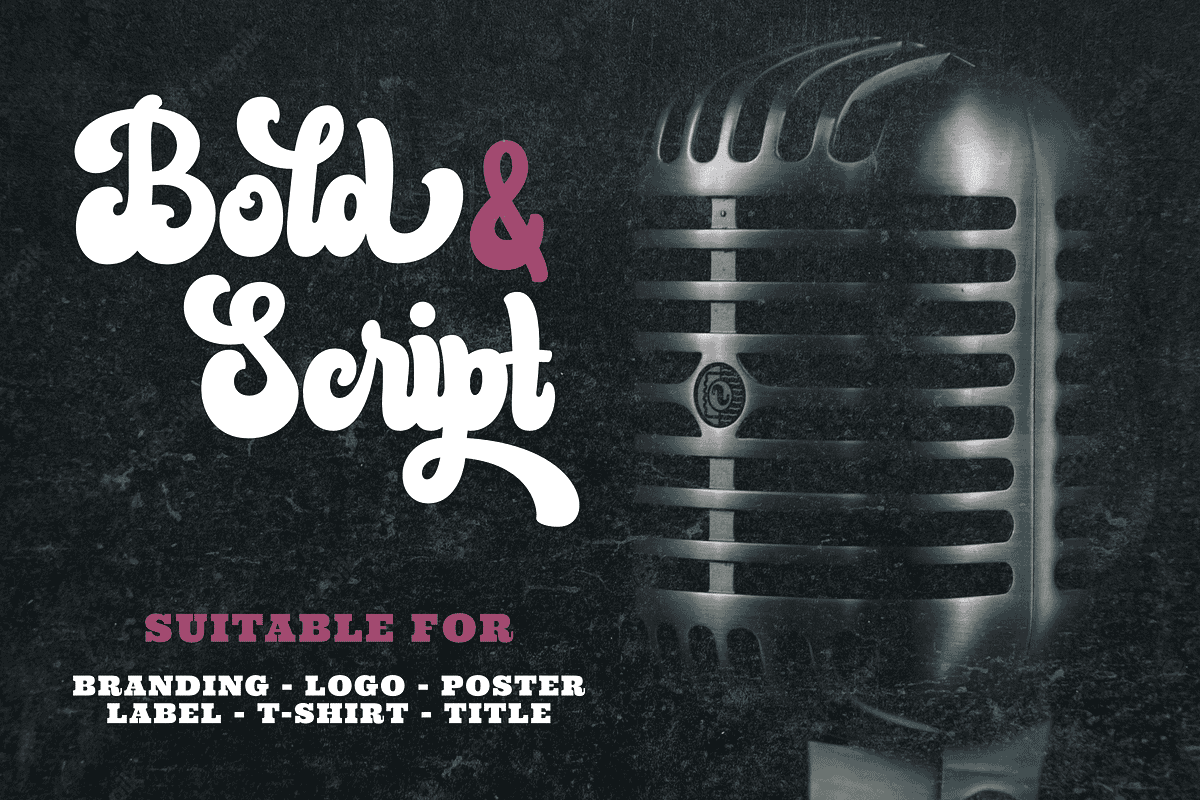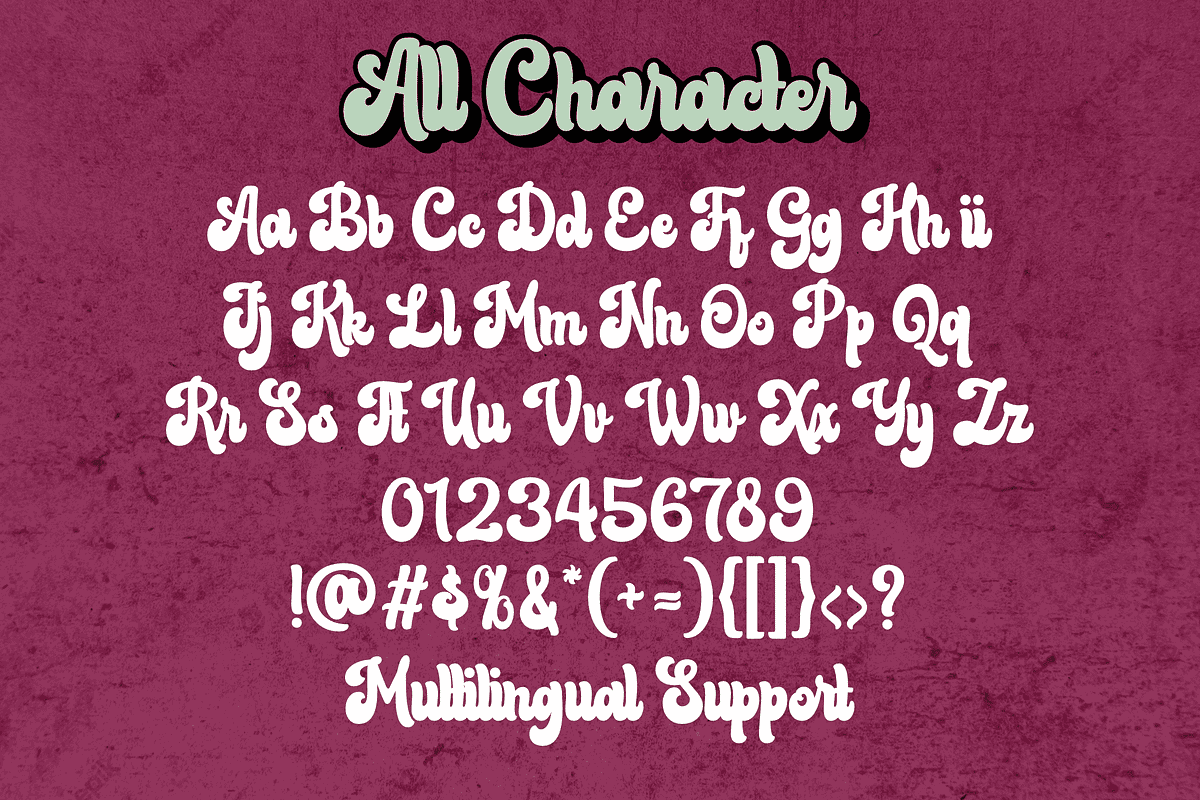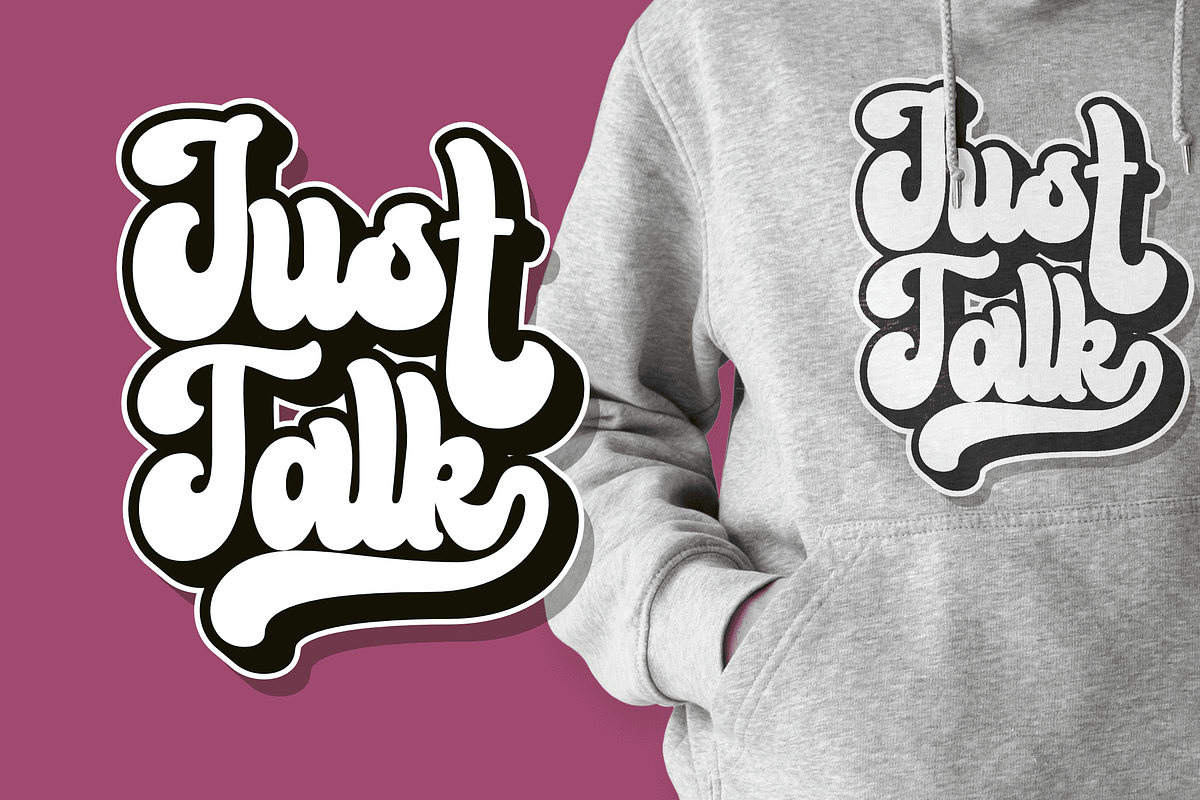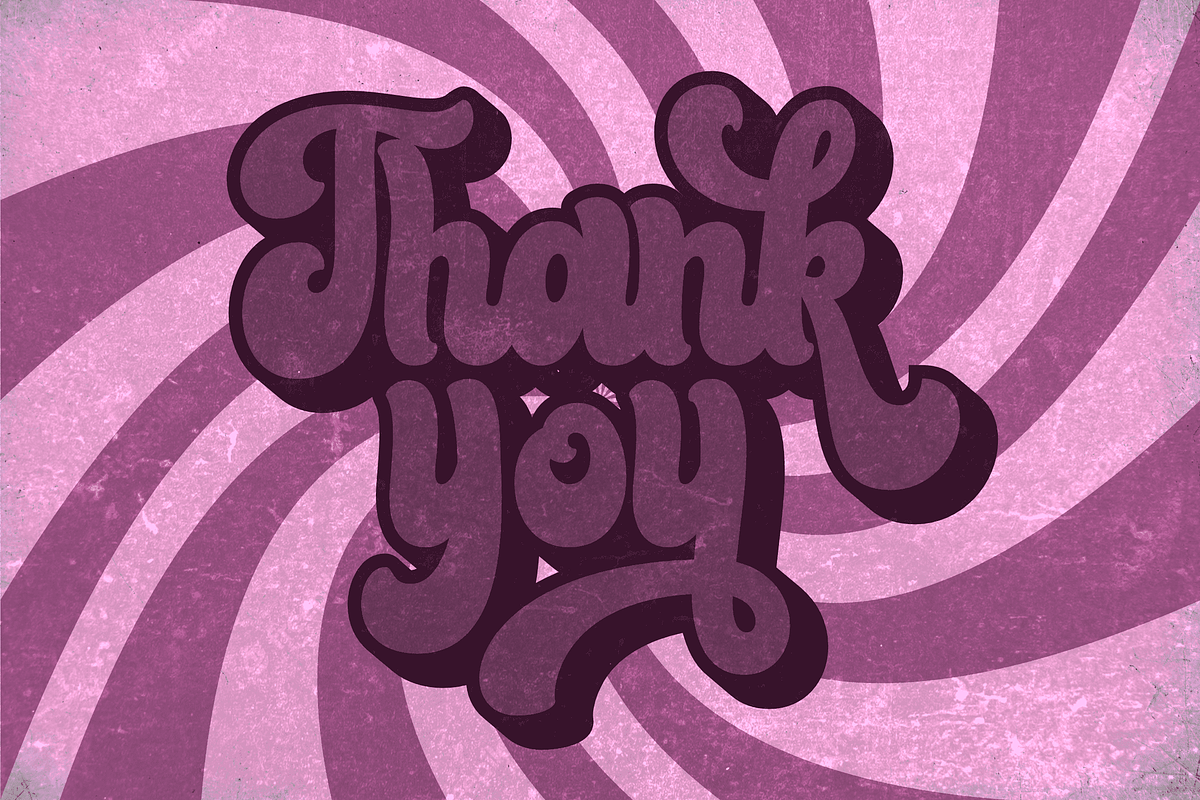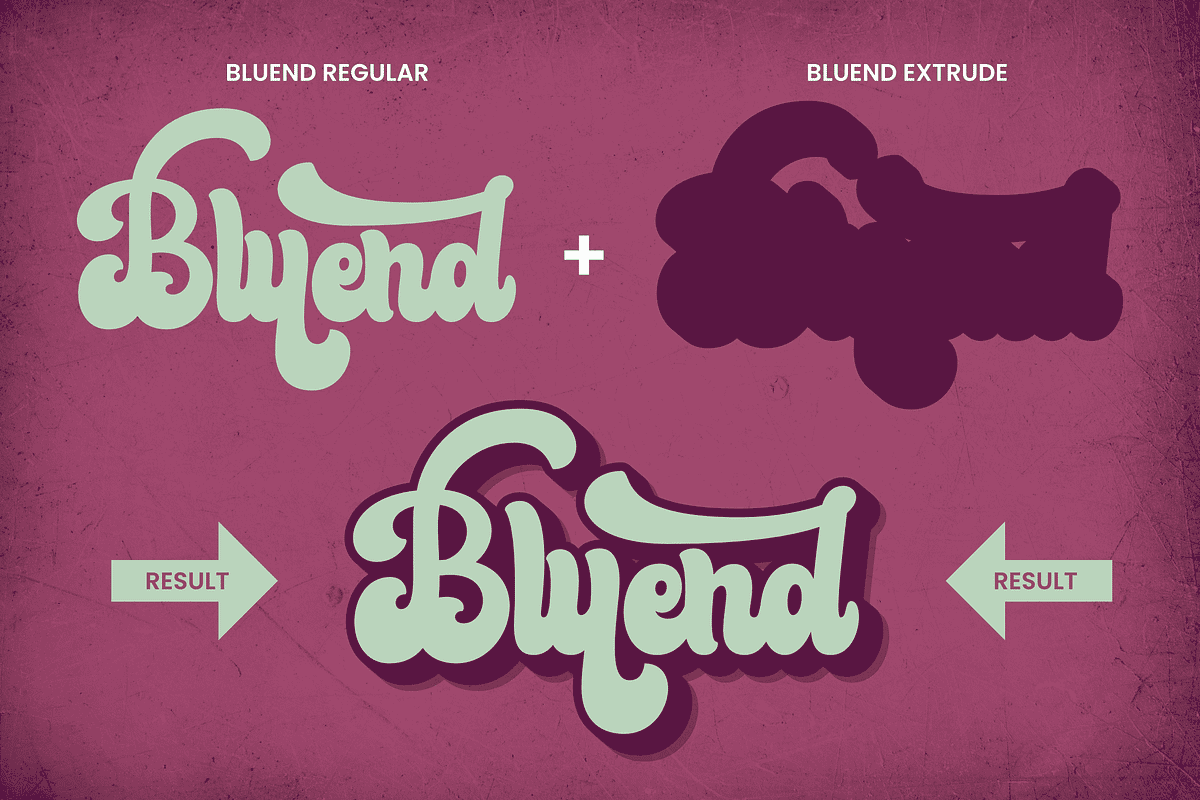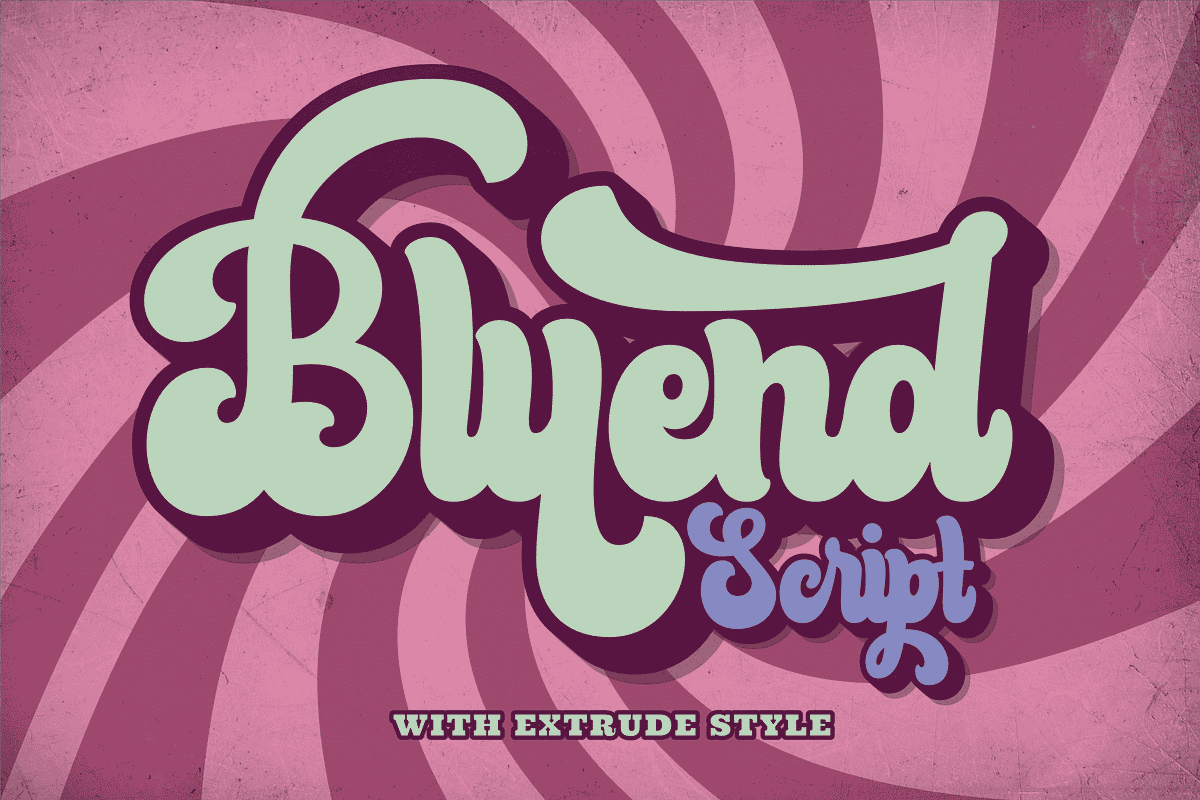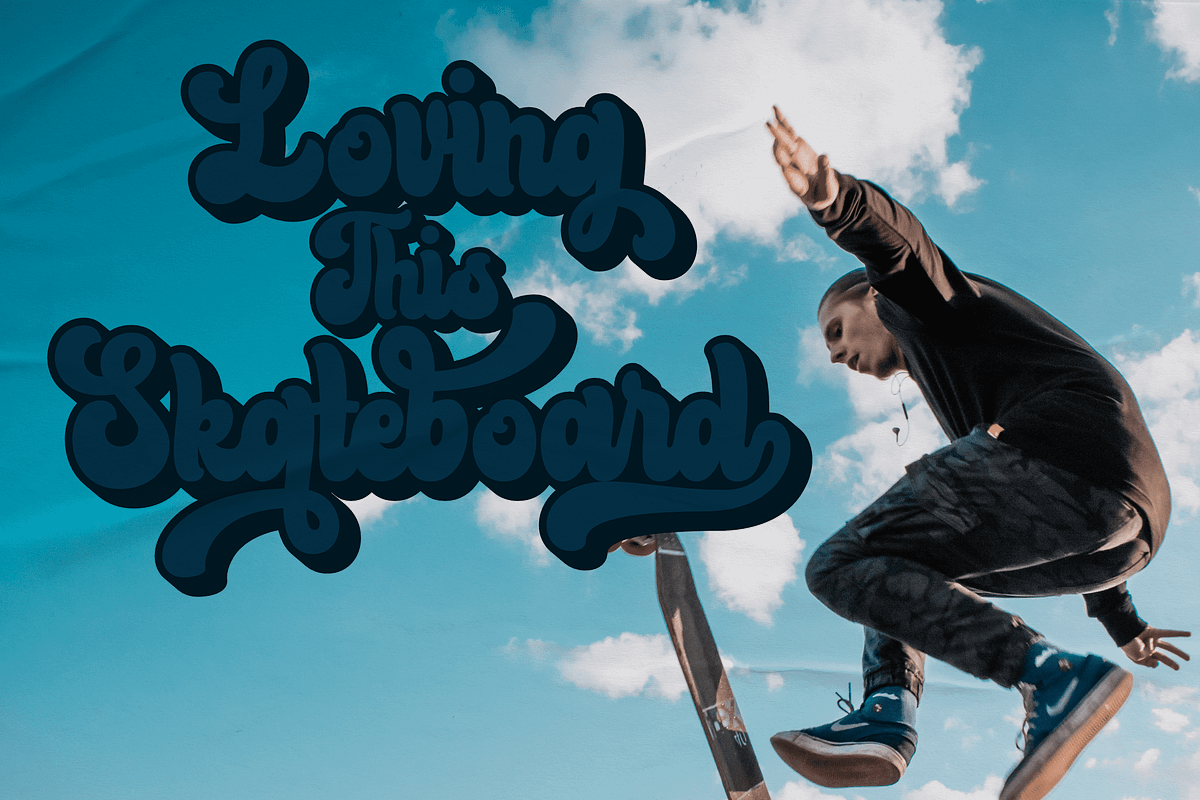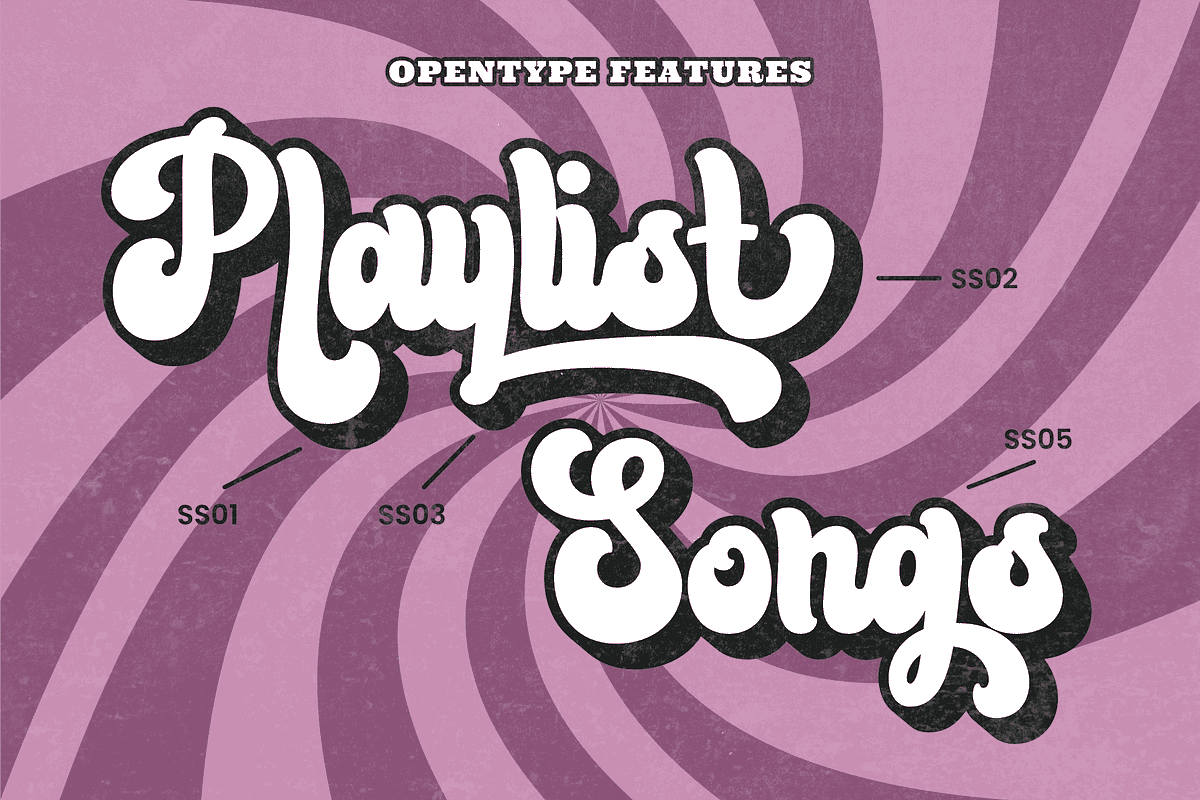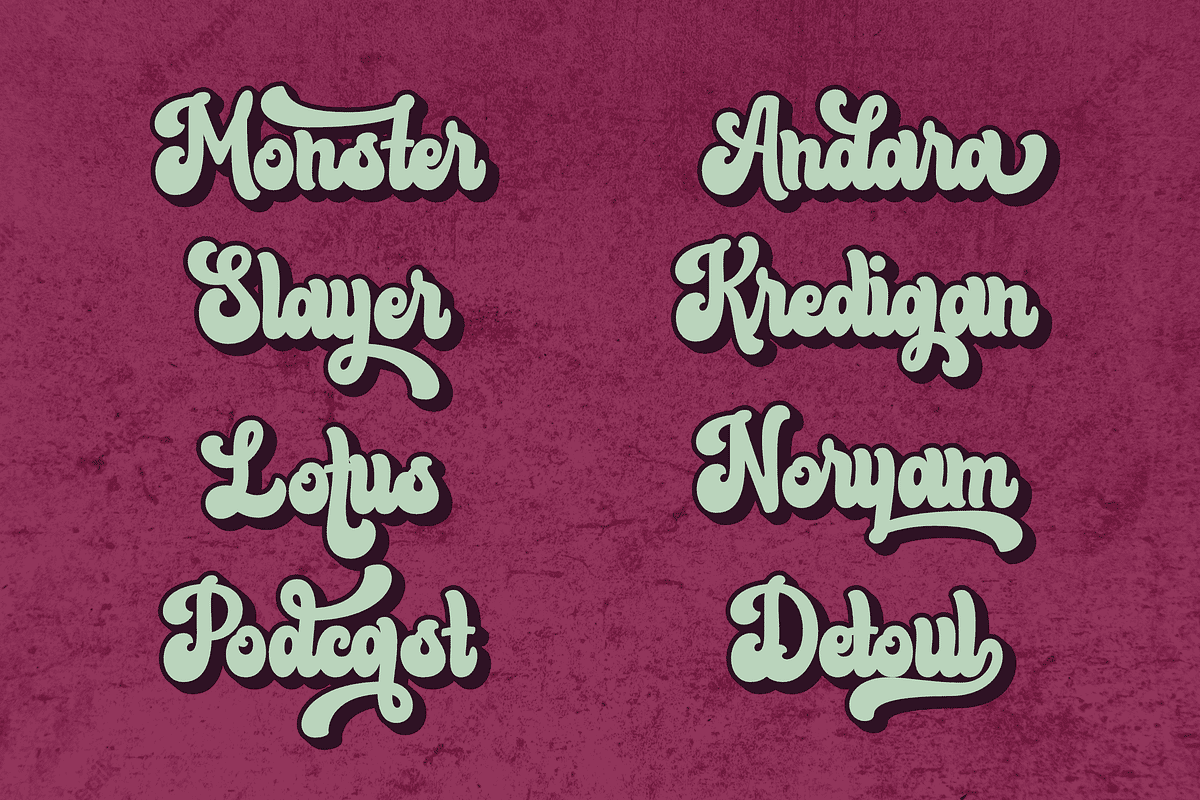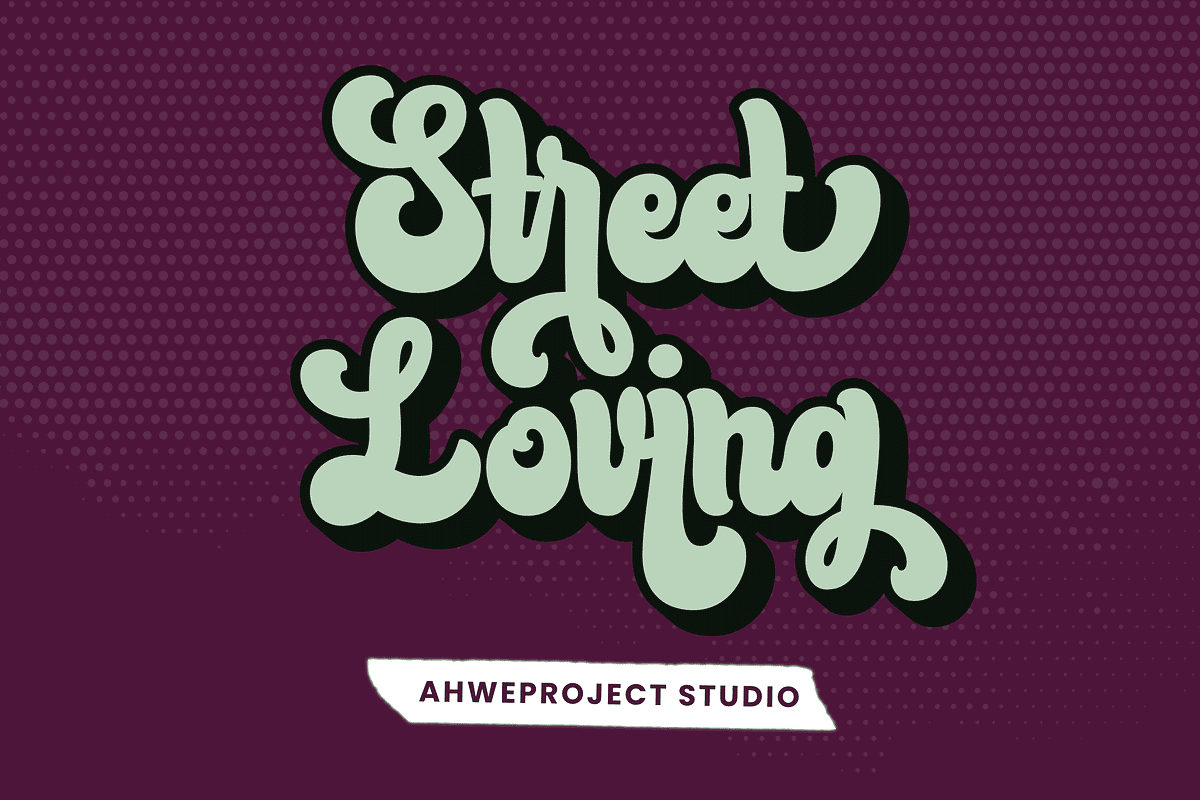
Bluend - Retro Script Display
Bluend is a bold retro-style script display font. With a retro and groovy vibe, this font is suitable for a wide pool of design ideas. This font reads as strong, confident, and dynamic and can add tons of nostalgic character to your designs. This font is PUA encoded which means you can access all glyphs and swashes with ease!